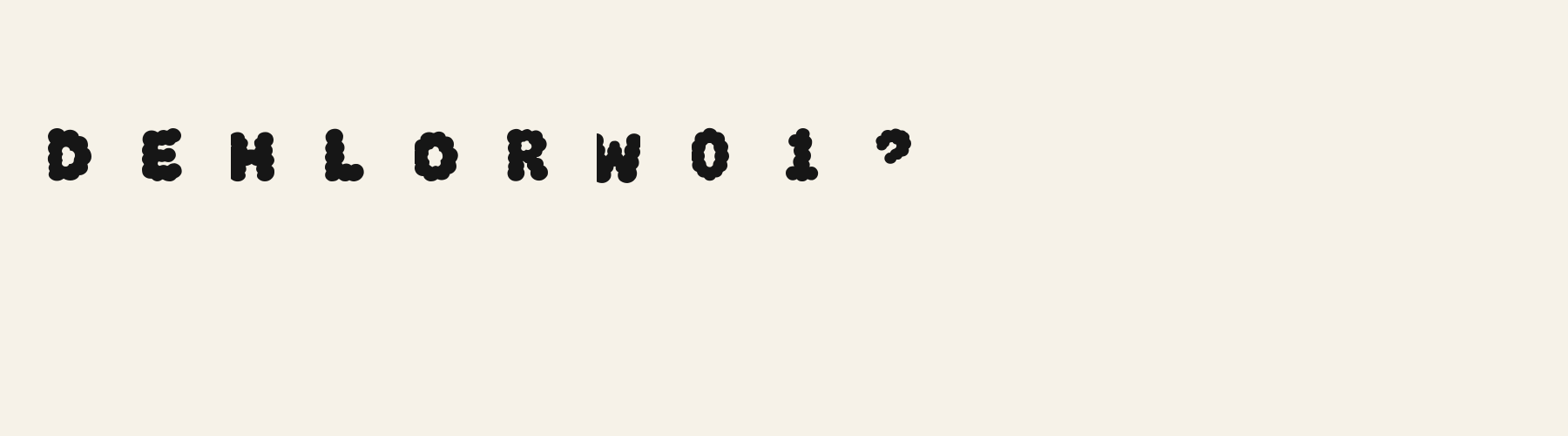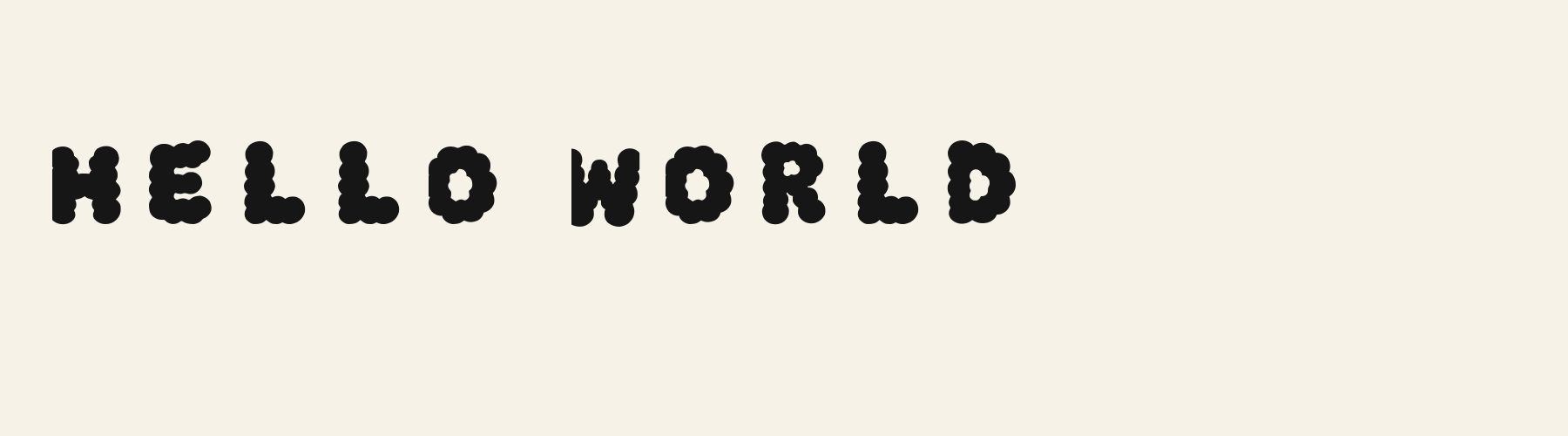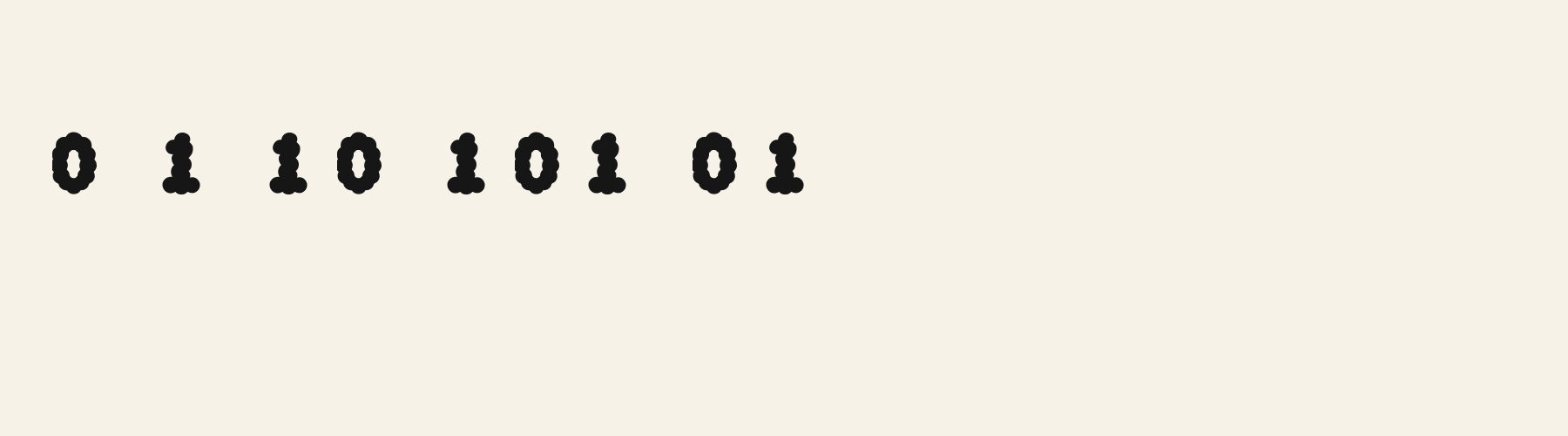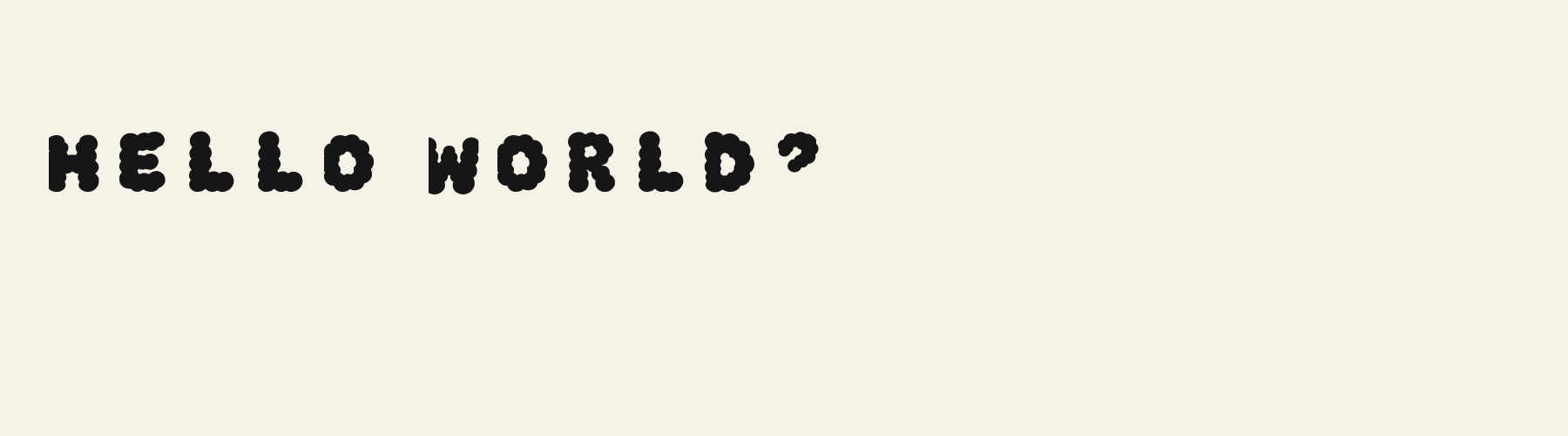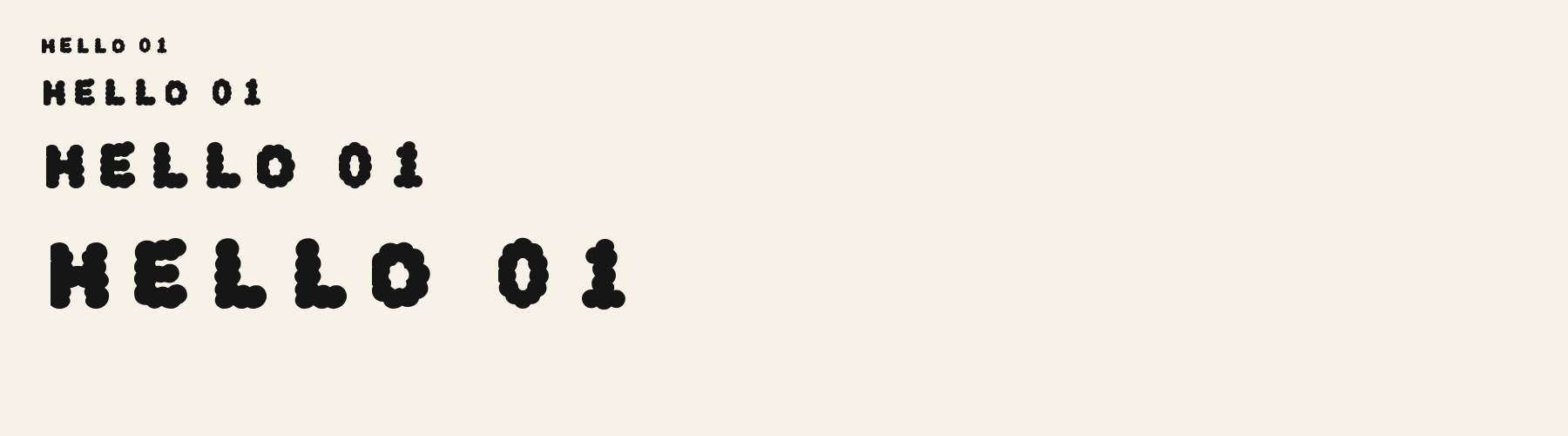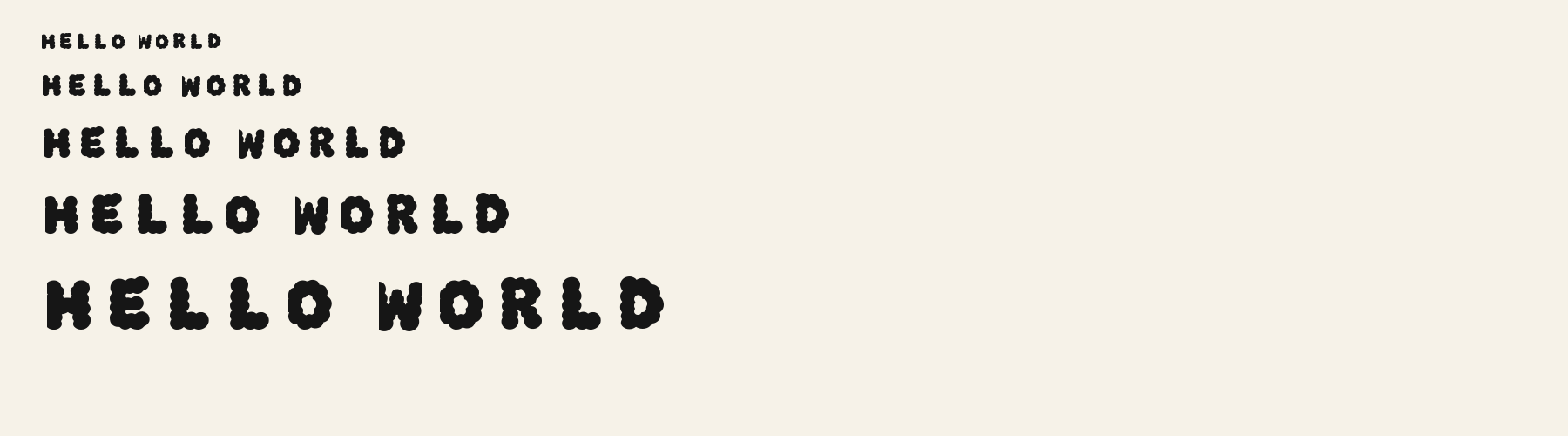
Bubble Cloud Lobed Scalloped Bead Display Font
Bubble Cloud Lobed builds heavy letters from repeating rounded bumps, giving both straight strokes and curved bowls a scalloped silhouette.
Scalloped Bead Display Letterforms
Bubble Cloud Lobed builds heavy letters from repeating rounded bumps, giving both straight strokes and curved bowls a scalloped silhouette. The E carries this rhythm along its upright and across its short arms, with soft notches between them. The L finishes in a thick, rounded foot, while the O encloses a pale opening whose uneven edge echoes the outer contour. Strokes stay broadly even in weight, and the dense black shapes make the small gaps and counters noticeable. The upright forms feel cheerful and chunky, with a clustered texture that brings a tactile, playful mood to short display wording.
Preview your actual Latin wording, checking the O and R counters, the gaps around E, and neighboring scalloped edges. Inspect punctuation alongside the letters. For accented Latin or other scripts, verify character availability and fallback appearance separately; these specimens show unaccented Latin forms.
Try this face for a short heading, with a regular sans serif for descriptions and small labels. Its heavy masses and repeated edge bumps supply the texture; a companion with smooth outlines and open counters can keep supporting information visually quieter.
Compare the original spacing with a wider setting at your intended label size. Inspect whether neighboring scallops remain separate and whether the spaces inside and between letters still look balanced.
Bubble Cloud Lobed repeats small rounded bumps around the stems, bowls, and question mark. Choose it when a clustered, beadlike edge should carry the lettering's playful character.
Bubble Gel Wobble has smoother contours with broader swells and pinches. Its L bends into a soft foot, while its O has an uneven oval opening, suggesting a more fluid lettering texture.
Product label. The rounded, beadlike edges suit playful product labels; check the scallops and counters in a preview at the intended label size. OH WOW!
Sticker. Thick black masses and repeated rounded bumps give expressive sticker wording a puffy, tactile character. LITTLE WONDERS
Book or album cover. The scalloped outlines bring a playful texture to a children's cover title, with supporting details set in calmer lettering.
Its lowercase is tall: the x-height is 77.1% of the cap height, against a median of 74.4% for display fonts, taller than 69 of the 116 other display fonts. Ascenders on b, d, h, k and l rise 8.1% above the capitals, and descenders on g, j, p, q and y drop 17.1% of the cap height below the baseline, shallower than 102 of the 116 other display fonts. Its letters are of average width for display fonts: an average lowercase letter, spacing included, is 85.9% as wide as the capitals are tall (an average capital, 90.1%), within 1.4% of the median. The o is close to a circle, 1.05 times as wide as it is tall, and no capital is wider than H. The O stops 5.9% of the cap height short of H and dips 1.2% below the baseline.
The letters stand upright, leaning less than 2.5° either way. Vertical stems measure 33.9% of the cap height, heavier than 53 of the 58 other display fonts. Ink covers 57.1% of each lowercase letter's box (its advance width by the cap height), darker than 112 of the 116 other display fonts. Strokes keep one thickness in every direction: the sides of o and O measure the same as their tops and bottoms.
Its 95 characters include 52 Latin letters, plus 43 figures, punctuation marks and symbols; there are no accented Latin letters beyond A to Z. The word space measures 53.3% of the cap height, and the blank space either side of a lowercase letter takes up 11.4% of its width. The font carries no kerning, so spacing comes from each letter’s own side bearings. The figures have different widths, so columns of numbers set in Bubble Cloud Lobed will not line up exactly.